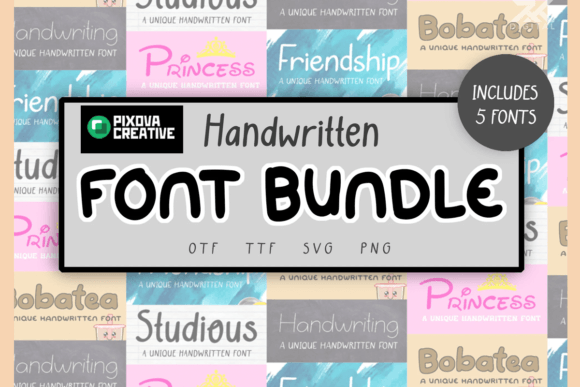
Friendly Handwriting Pack Font
About the Friendly Handwriting Pack Font
This playful and friendly font pack excels in projects requiring a personal touch. Ideal applications include headlines, short text blocks on invitations, greeting cards, social media graphics, and packaging for artisanal products. It adds a charming, handmade feel to branding for boutiques, cafes, or children’s products. Avoid using it for body text or lengthy paragraphs; its informal nature makes it less legible for extended reading.
For optimal visual balance, pair these fonts with clean sans-serif fonts like Open Sans or Montserrat for a modern contrast, or with a classic serif like Garamond or Playfair Display for a more traditional feel. A touch of a delicate script font could also enhance the handcrafted aesthetic in specific applications.
The overall personality is cheerful and approachable, making it perfect for conveying warmth and approachability.
Friendly Handwriting Pack Font Usage Examples
Friendly Handwriting Pack Font Example